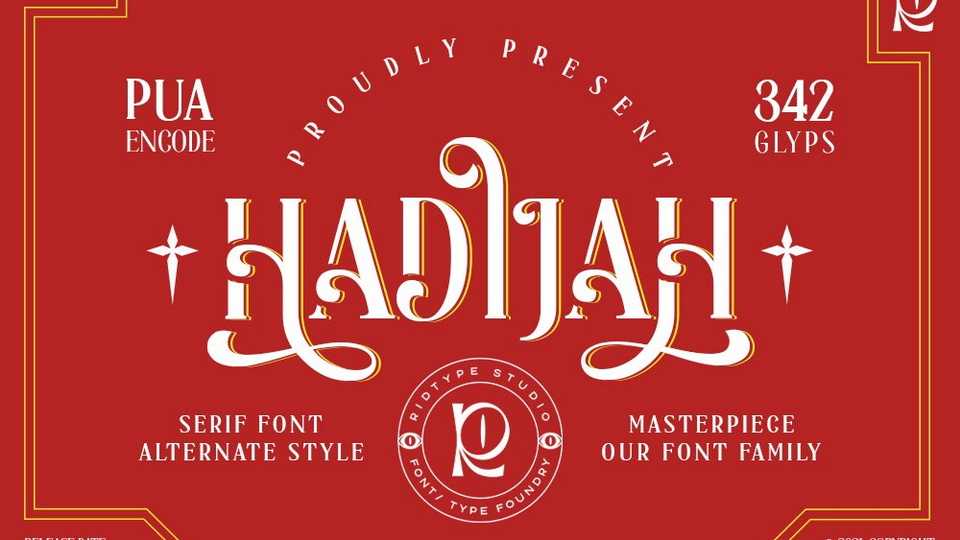
Download Hadijah font, a decorative typeface inspired by lettering artists. Hadijah font is mixed with a serif font style that carries the concept of an alternative style to create create a unique impression.
Designer: Ridwan Fadilah